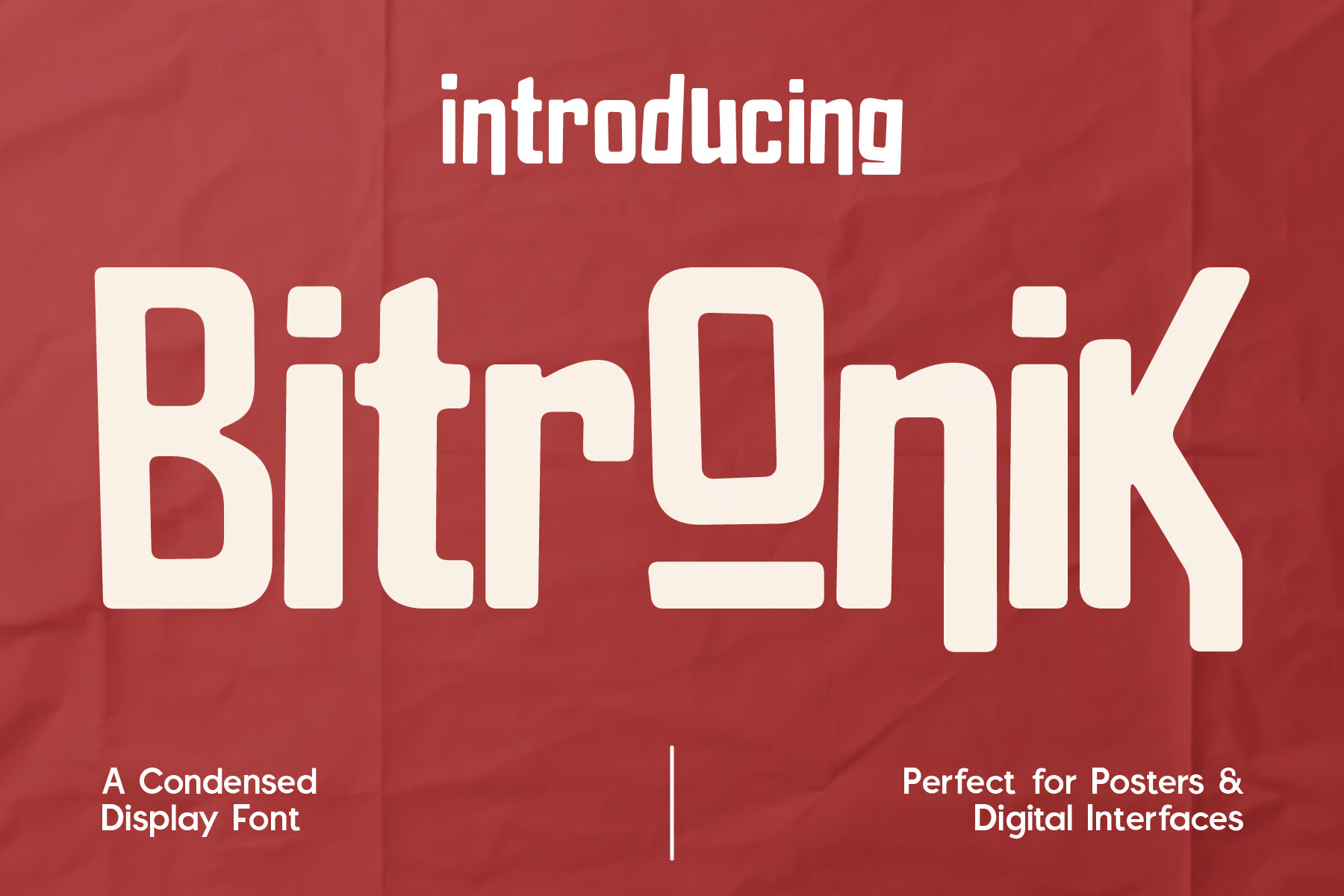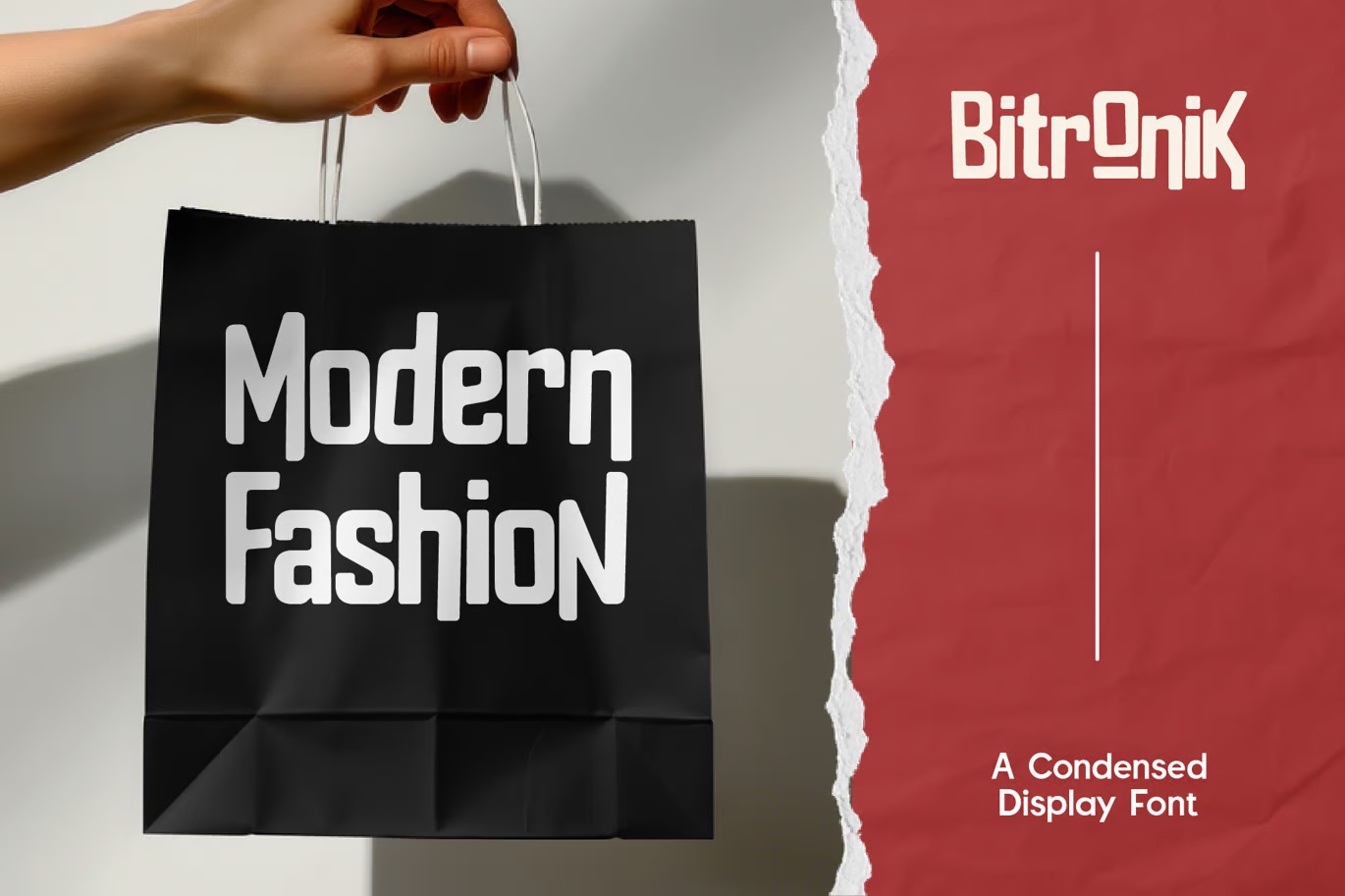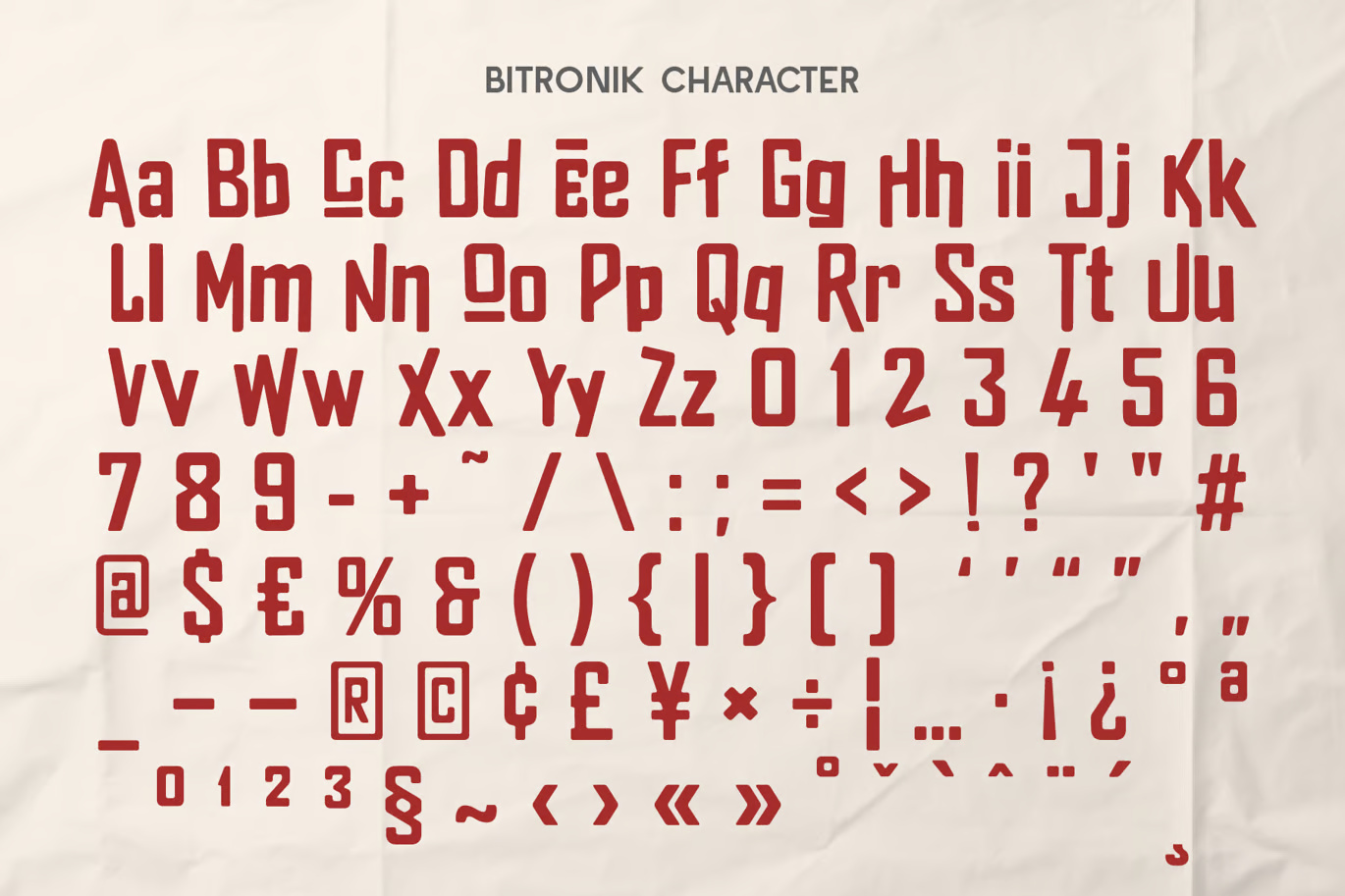
Bitronic Condensed Display Font
Bitronik is a futuristic, condensed display font designed to capture the essence of the digital age. With sharp, sleek letterforms that blend modular elements and geometric precision, it stands out with its clean yet edgy look. This font is ideal for tech-inspired projects, from posters and UI interfaces to logos and branding that require a bold, digital presence.
Bitronic Condensed Display Sans-Serif Font